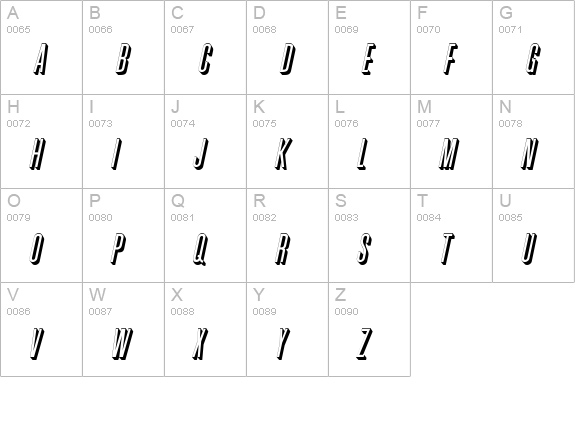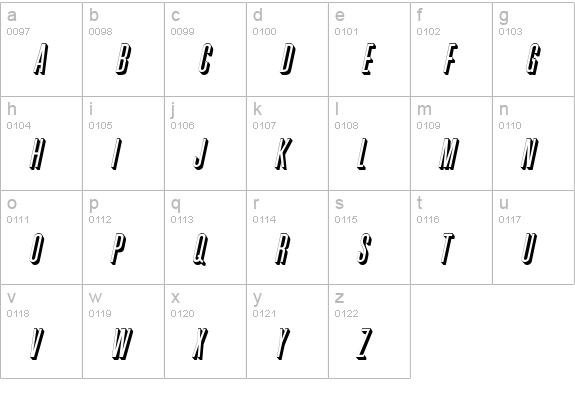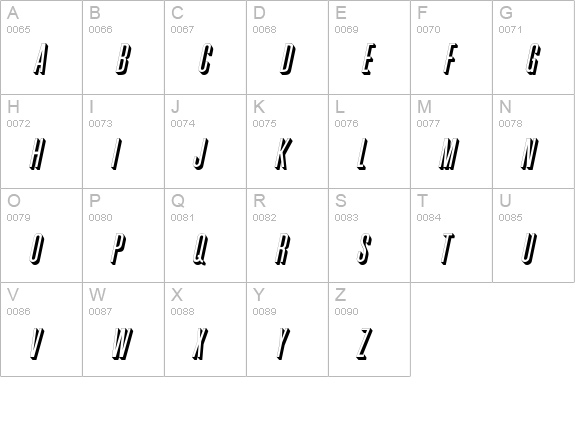
Phoenix Italic is a distinctive, italic variant in the Phoenix typeface family \xE2\x80\x94 well suited to design and typography projects.
Introducing Phoenix Italic font, a captivating typeface that exudes elegance and sophistication. Its slanted and gracefully flowing letterforms create a sense of movement and dynamism, making it the perfect choice for adding a touch of flair to any design project. This stunning font strikes the perfect balance between modernity and classic charm. The slender and slightly curved strokes lend a sense of delicacy, while the strong verticals provide stability and legibility. Whether you're designing a logo, a headline, or body text, Phoenix Italic font will effortlessly elevate your work to new heights. Adding to its allure, Phoenix Italic font is not only visually appealing but also incredibly versatile. Its timeless appeal makes it suitable for a wide range of projects, from branding and advertising to editorial design and packaging. This font adapts seamlessly to various styles, from minimalist and contemporary to vintage and nostalgic. What sets Phoenix Italic font apart is not only its aesthetic appeal but also its accessibility. This font is freely available to download at FontsMarket.com, making it an excellent choice for designers on a budget. With just a few clicks, you can add this remarkable font to your collection and unlock its limitless creative potential. Don't miss the opportunity to enhance your designs with Phoenix Italic font. Its stylish and expressive nature will captivate your audience and leave a lasting impression. Whether you're a professional designer or an aspiring creative, this font will undoubtedly become an invaluable asset in your typographic toolbox. Experience the beauty and versatility of Phoenix Italic font today and take your designs to soaring new heights.